10 Elegant Fonts for Wedding Invitations
The font on a wedding invitation often speaks before the words do. It sets the tone—romantic, personal, or gracefully modern—before guests even begin reading. Paired with thoughtful layout and soft textures, typography becomes part of the emotion the couple wants to share.
Every wedding carries its own atmosphere, and fonts help express that through shape, rhythm, and style. A flowing script can add tenderness to minimal design. Handwritten lettering brings warmth, while modern calligraphy adds a refined, artistic edge. Across Save the Dates, menus, and welcome signs, typography quietly ties the details together.
This curated roundup highlights 10 elegant fonts designed for wedding invitations and event stationery. From romantic scripts to clean calligraphy styles, each typeface brings clarity and personality, helping you create designs that feel both polished and heartfelt.
1. Hello Bride Font
An elegant script font with long, flowing strokes and a soft romantic feel. Ideal for invitations, vow books, or welcome signs that need a timeless and graceful touch.
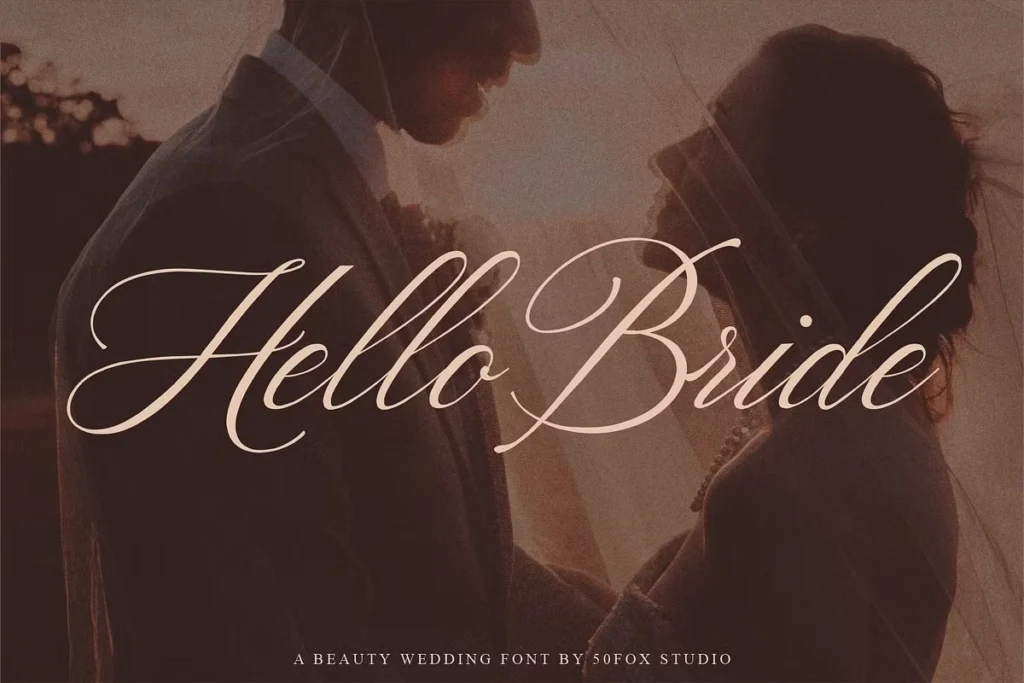
2. Ms Claudy Calligraphy Font
A refined modern calligraphy font with elegant swashes and graceful movement. Great for invitation suites, wedding menus, or signage where a touch of sophistication is key.
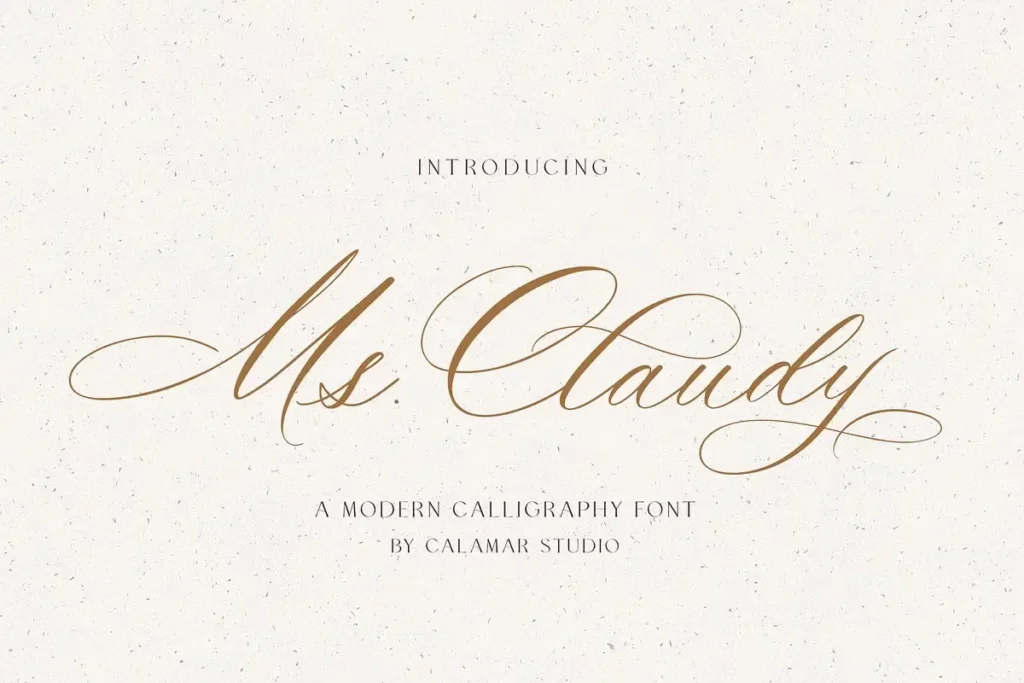
3. The Hamptons Script font
A timeless script font with strong contrast and elegant curves. Perfect for invitation headers, table numbers, or signage where you want a classic yet bold impression.
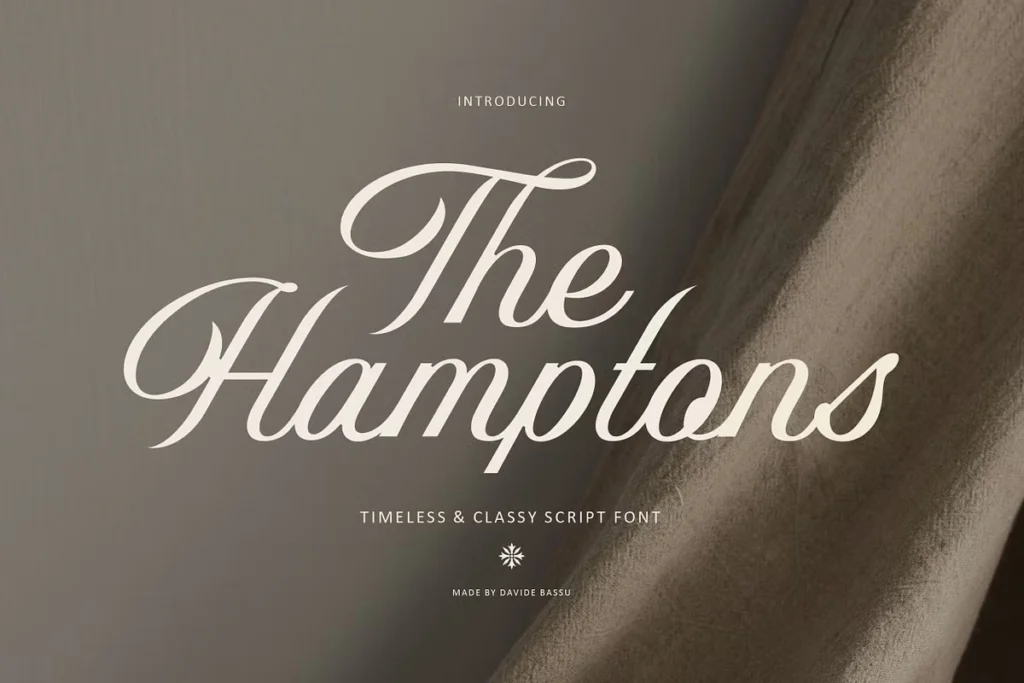
4. Vintage Heirloom Font
A modern calligraphy font with long, expressive strokes and a handwritten feel. Great for vows, name cards, or detail-focused pieces that call for elegance with personality.
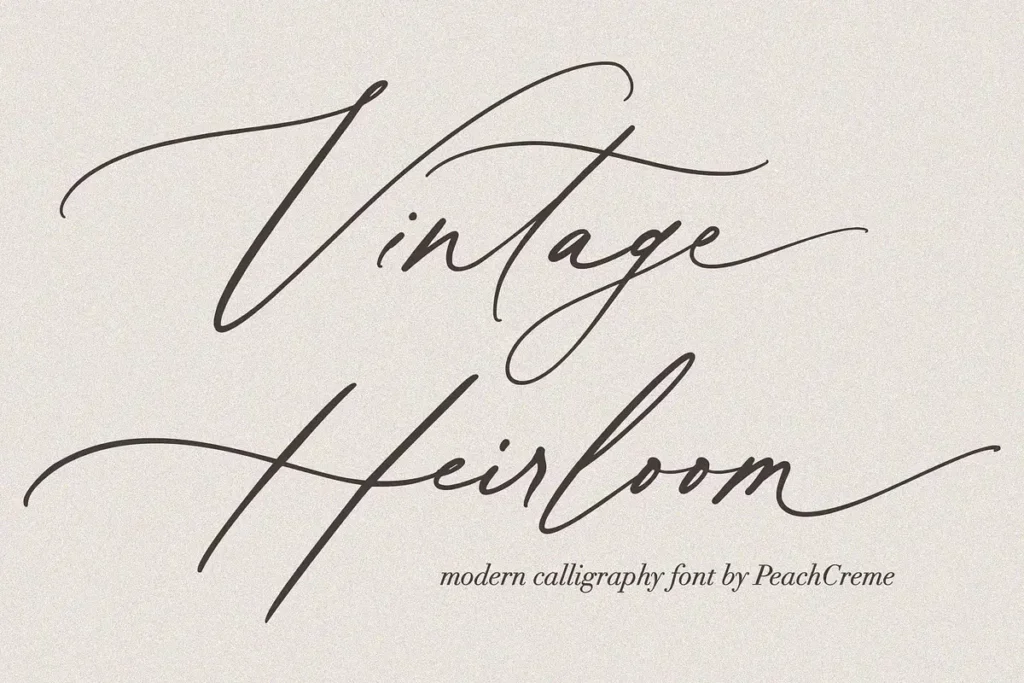
5. Marinsley Script Font
A luxurious script font with elegant swashes and classic curves. Ideal for names on invitations, signage, or headings that need a bold, graceful presence.
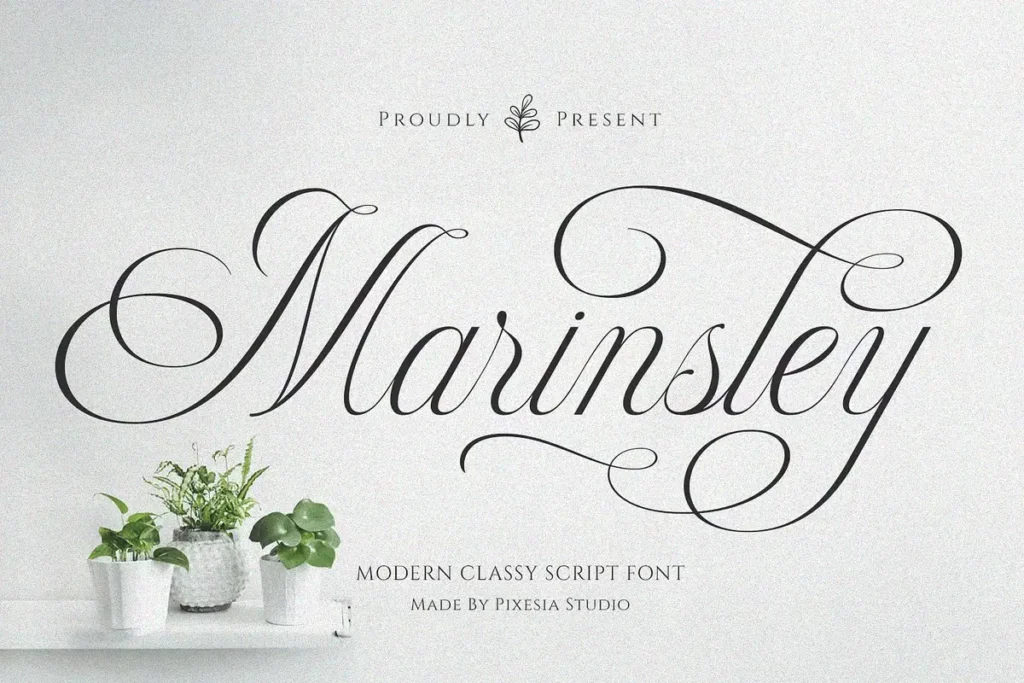
6. Beverly Hills Font
A high-fashion display font with elegant ligatures and stylish contrast. Great for bold invitation titles, seating charts, or welcome signs that call for a modern luxe aesthetic.
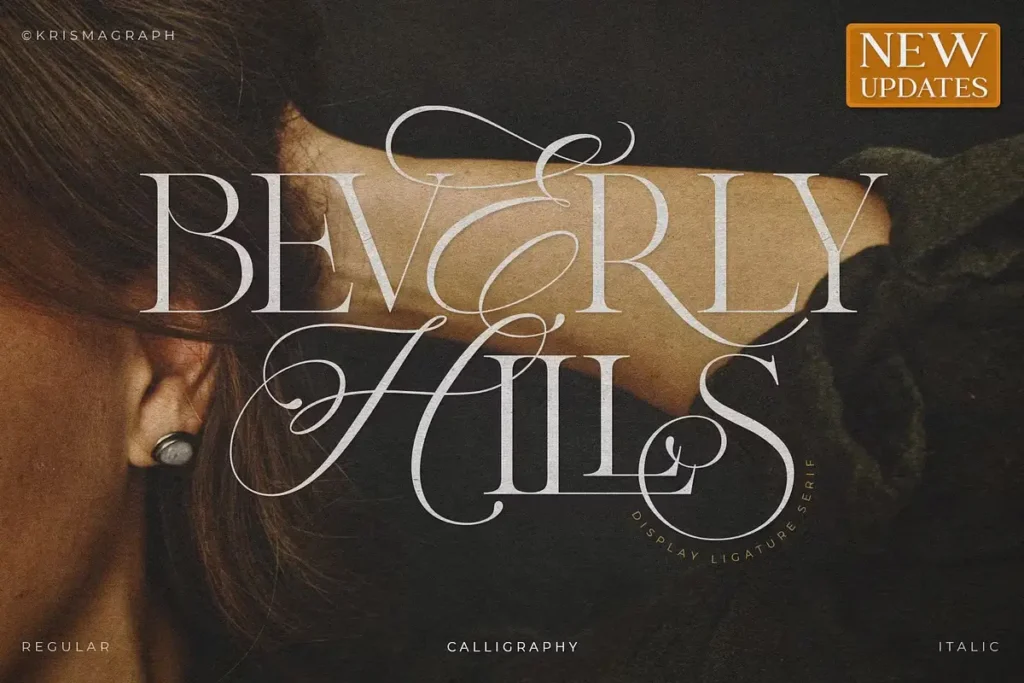
7. Lucille Calligraphy Font
A calligraphy font with a soft, handwritten look and gentle flow. Lovely for escort cards, thank-you notes, or minimal invitation designs with a natural, organic touch.
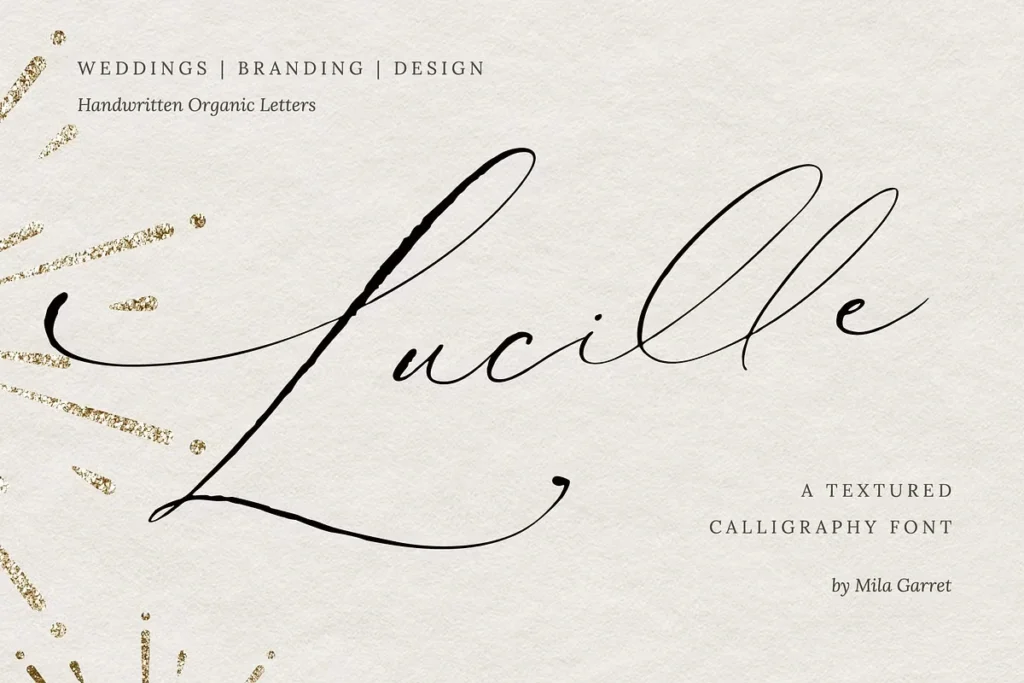
8. Kaelyna Script Font
A graceful script font with refined curves and a classic feel. Perfect for invitation headings, place cards, or wedding signage with a polished and romantic style.
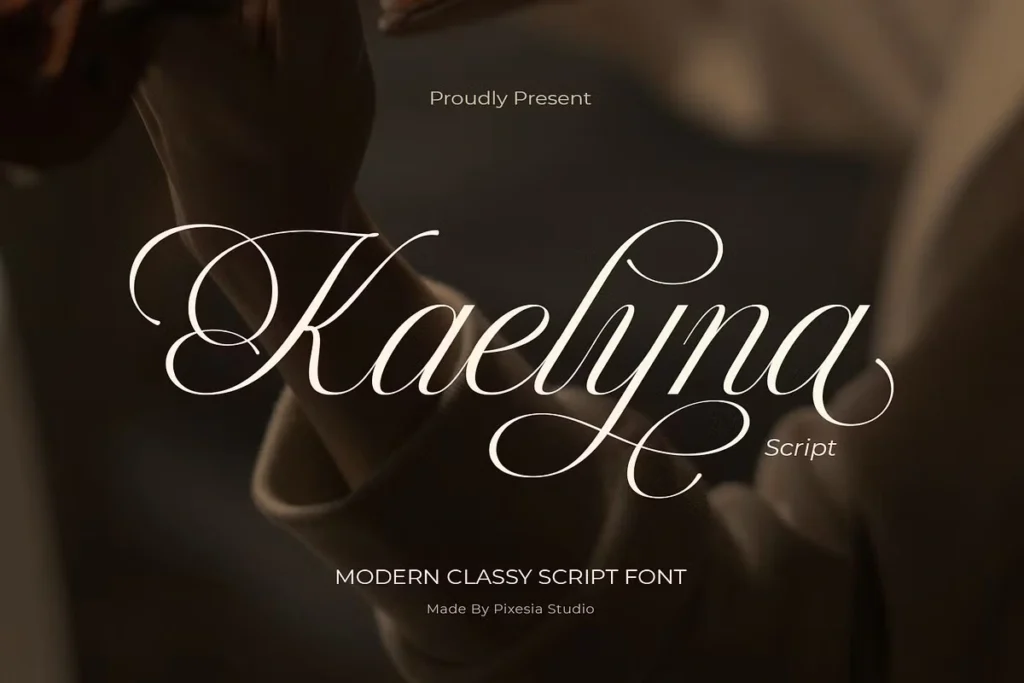
9. Saint Viet Calligraphy Font
A romantic calligraphy script with sweeping curves and artistic flair. Beautiful for invitations, envelope addressing, or signage that needs a handwritten, elegant touch.
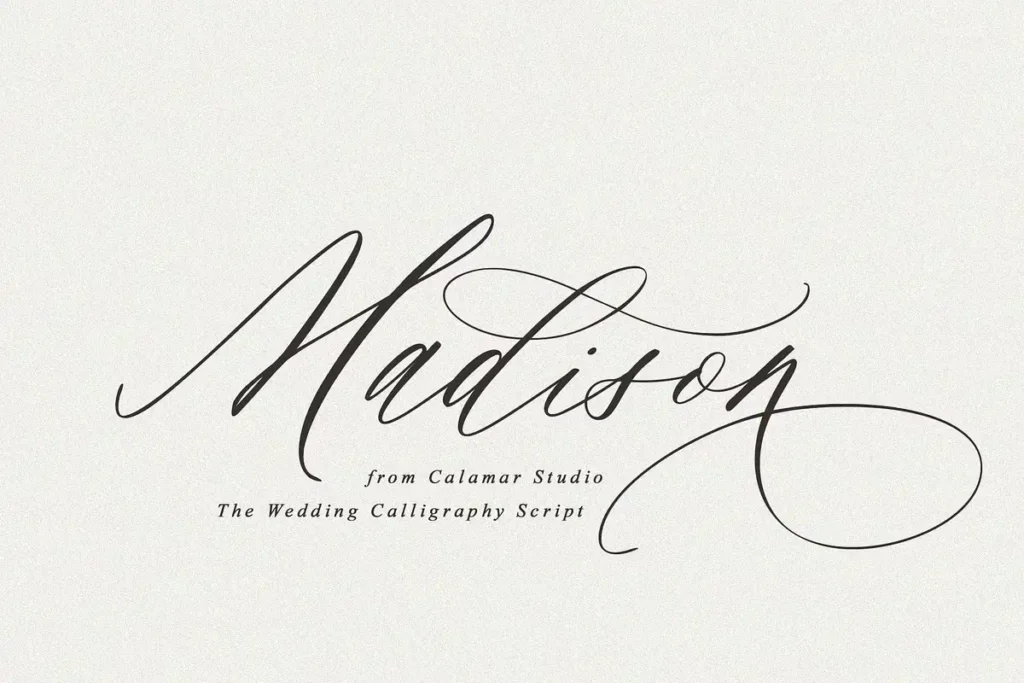
10. Le Maire Script Font
A stylish script font with refined curves and a graceful flow. Perfect for invitation titles, menu headers, or signage that calls for an elegant and romantic accent.
Fonts are more than decoration—they guide the mood of every printed moment, from the first Save the Date to the last thank-you tag. The styles in this list were chosen for their elegance, clarity, and versatility across wedding pieces: invitations, menus, signage, vow books, and more. Whether you’re drawn to flowing calligraphy or a clean, romantic script, each font here helps create designs that feel cohesive, thoughtful, and deeply personal.